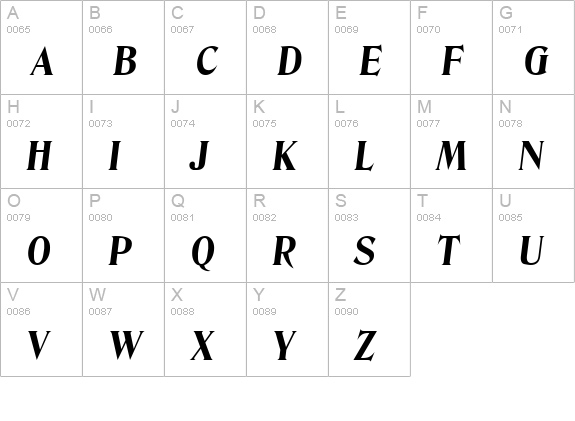
Blue Ridge SF Bold Italic is a strong, high-contrast, italic variant in the Blue typeface family \xE2\x80\x94 well suited to headlines, attention-grabbing titles, and strong calls-to-action.
Introducing Blue Ridge SF Bold Italic font - a modern and stylish typeface that exudes sophistication and elegance. With its bold yet graceful italic design, this font is perfect for adding a touch of flair to any project. The Blue Ridge SF Bold Italic font features clean lines and a contemporary feel that will make your designs stand out. But the best part? This stunning font is available for free download at FontsMarket.com! You can easily access this versatile typeface and elevate your creations with its unique charm. Whether you're working on branding, advertising, or any other design project, Blue Ridge SF Bold Italic font is sure to make a lasting impression. Don't miss out on this opportunity to enhance your work with this beautiful and freely available font.